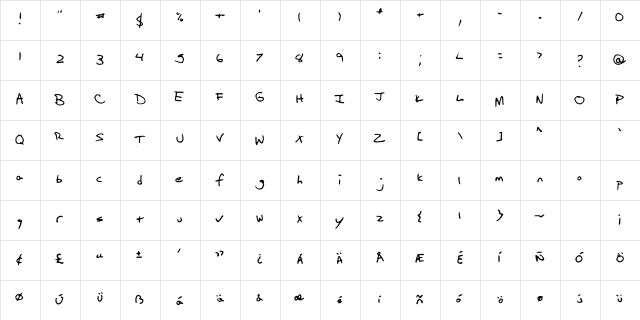
GinchTest Medium
Design Context for GinchTest Typeface
GinchTest is a composed and adaptable typeface that performs quietly and consistently across a wide range of design contexts.